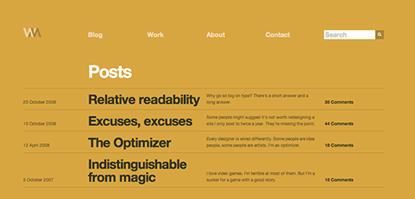
Sometimes inspiration can lead to great things. In this case, it is Wilson Miner’s newly redesigned website.
His new website—which includes both his blog and portfolio—is inspired by a concert poster designed by Swiss designer Joseph Müller-Brockmann. The way Wilson translated the idea of the poster into digital form is astonishing. If Joseph Müller-Brockmann were alive today (and designing websites), this is what they would look like—trust me.
Wilson’s use of type, color, and most of all, structure, not only keeps the Swiss style of graphic design alive (print withstanding), but also breathes a breath of fresh air into the world of web design and what is typically found on the Internet today.
Type
Among other things, typography plays the largest part in holding the design together. On the home page, which lists his various blog posts, photos, links, and other “ephemera”, every letter is typeset in Helvetica—from the navigation to the headings to the body copy.
One thing I’d like to point out is his use of Helvetica instead of Arial for body copy. It’s understandable why many designers use Arial at small sizes because of the horrid rendering of Helvetica on the Windows operating system; but the fact is, Helvetica looks great on Macs. I have yet to understand why some designers don’t use Helvetica instead of Arial on their personal websites, considering their target audience are Mac users (Khoi, I’m looking at you!).
The typography veers into a new direction when one digs deeper into the site. Blog entry pages are typeset in big, very readable Palatino. Despite the fact that this use of typography, in a way, disagrees with most of Brockmann’s work, the result here is positive. The type is easy to read, and is a nice change of pace.
In keeping with the consistent style of the home page, Wilson manages to use large, tightly letter spaced, bold titles set in Helvetica throughout most other pages. The contrast between the sans-serifs and the serifs is very comfortable on the eyes and makes for good hierarchy.
Color
When Wilson introduced his new design, he noted:
“The color is the only purely visual accent, but it only adds character to an impact that’s already there. I wanted to see if I could get that across on the web. First of all, that scale and contrast, but also that play between color and content. I’ve never been much as a purely visual designer, and I’m worthless as an illustrator. So I try to stick to the tools I have left: type, spacing and color. Especially color.”
And boy did he utilize those tools very, very well. His use of color is really what separates his site from most other Swiss inspired sites. White seems to be the popular color for most Swiss design, especially on the Web. When Wilson’s new site debuted, the background color of his site was green. It was memorable, and in addition to the type, it really made the design his. Within months, Wilson changed the background color from green to a cross between yellow and orange—once again: very memorable. I actually kind of hope he changes the color every month. He’s two for two, so far.
When a user clicks through to an interior page of his site, the background of the main content is changed to white (I’m assuming this was done for readability), while the header and footer remain unchanged.
Links are set in a blueish-turquoise color that looks great in contrast with both the white background and the colored background of both the header and footer.
Structure
And now, the finale. The typography and and color are merely accessories to the structure of the website. Every piece of content is staggered across a grid. Some columns remain empty for the sake of whitespace and readability, while others are used for either meta data, comments, or other important information.
The list of recent blog posts on the home page seems to be an almost exact replica of Brockmann’s orchestra poster. Most evident is the title (bold and larger than the surrounding text), which occupies the second column, which is very similar to Brockmann’s design.
One of the great things about Wilson’s design is the transformation of static, permanent content to dynamic, interactive content. The Photos section, for instance (found on the home page), is staggered across the grid, while the information (including titles and dates) is set against various columns of the grid in a readable and attractive way.
Conclusion
As hard as I try, I cannot criticize Wilson Miner’s website. Dare I say it: Wilson Miner’s website may be perfect. But then again, what else would one expect from one of the folks responsible for the Apple.com redesign?
This is just an idea, but I think it might be interesting if Wilson were to experiment with sIFR and attempt to replicate the Akzidenz Grotesk found on Brockmann’s concert poster.
Site looks amazing. Love the details and grid.
Site looks nice but I’m not feeling the color. I think it really takes away from the beautiful design.
What i dont like is the mixing of colours and various typefaces on the other pages, this is where it all falls apart for me.
The beauty of that homepage is in it’s simplicity, with the flood of colour, one typeface and a well considered structure.
As soon as you introduce the tonal banding of colours and different typefaces it no longer holds together as a coherent design.
I was really excited on seeing the first page and then felt let down with the others